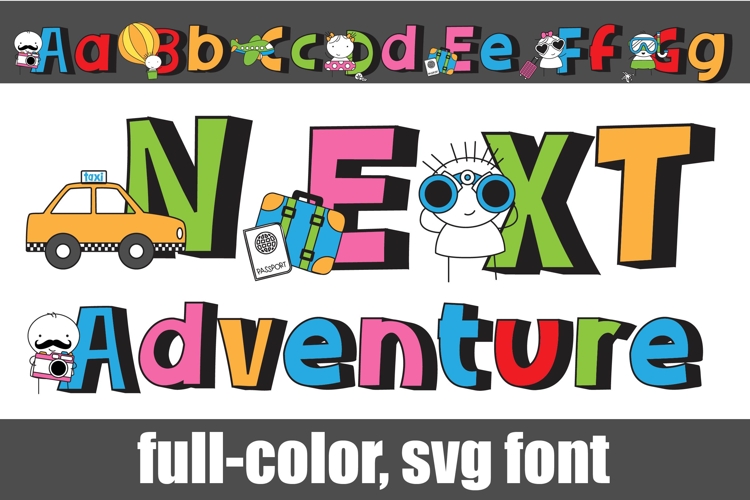
Next Adventure Color Font
This full-color, sans serif font has vacation themed stick figure and images on the uppercase. There is an alt case of additional colors of each letter that you can access through your system's character map.